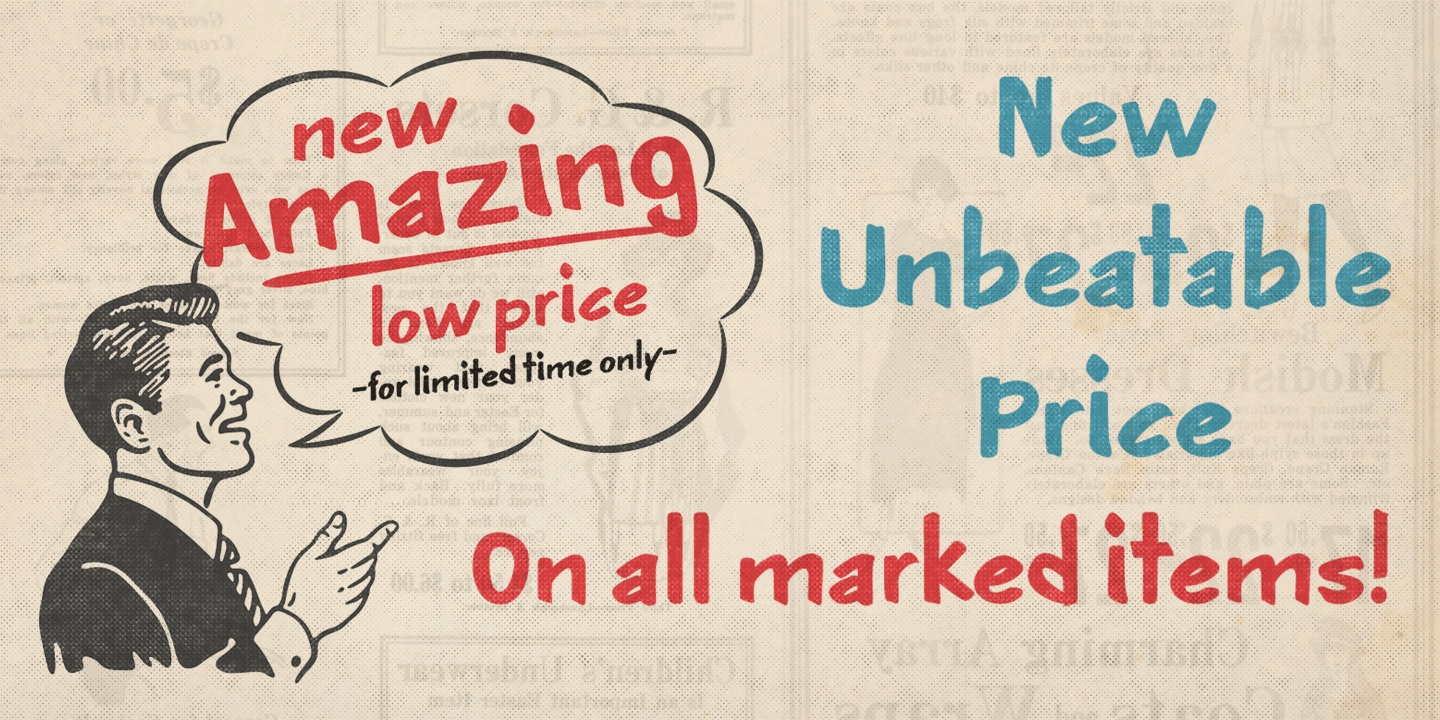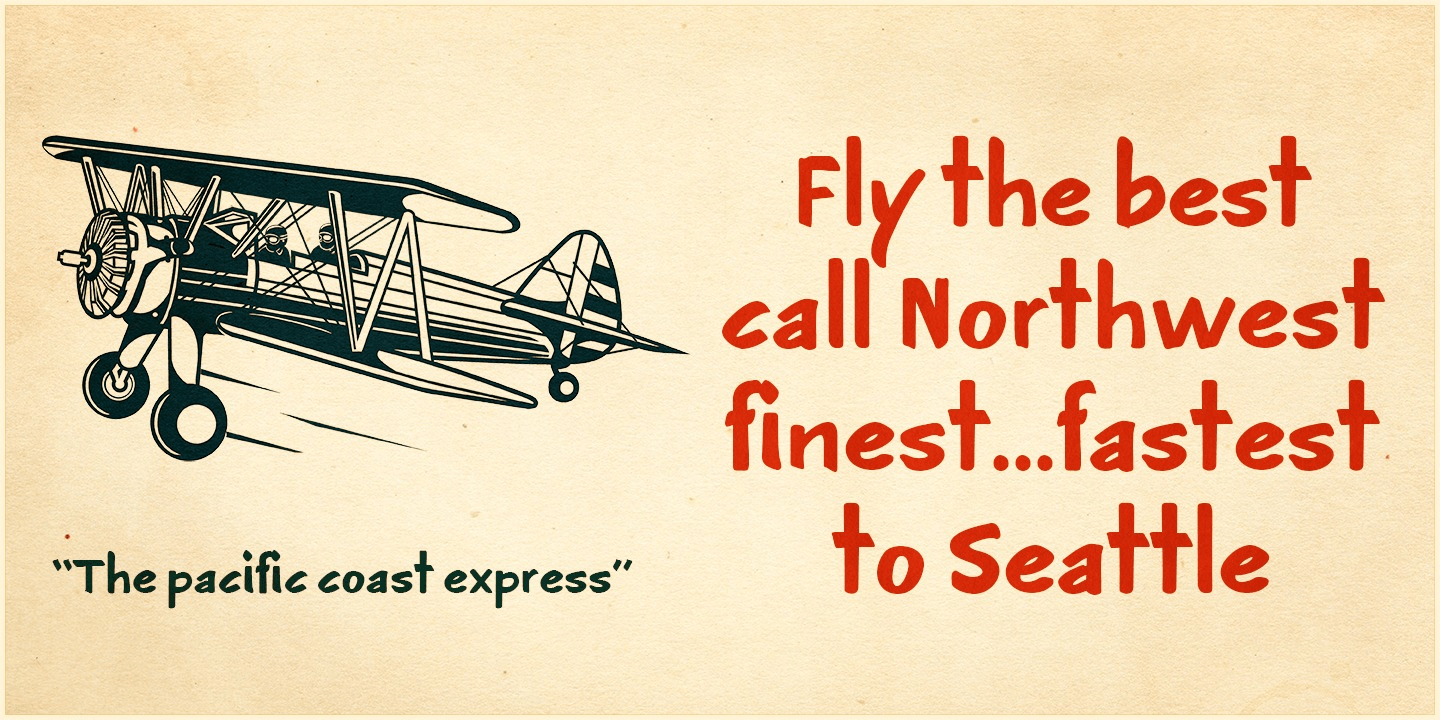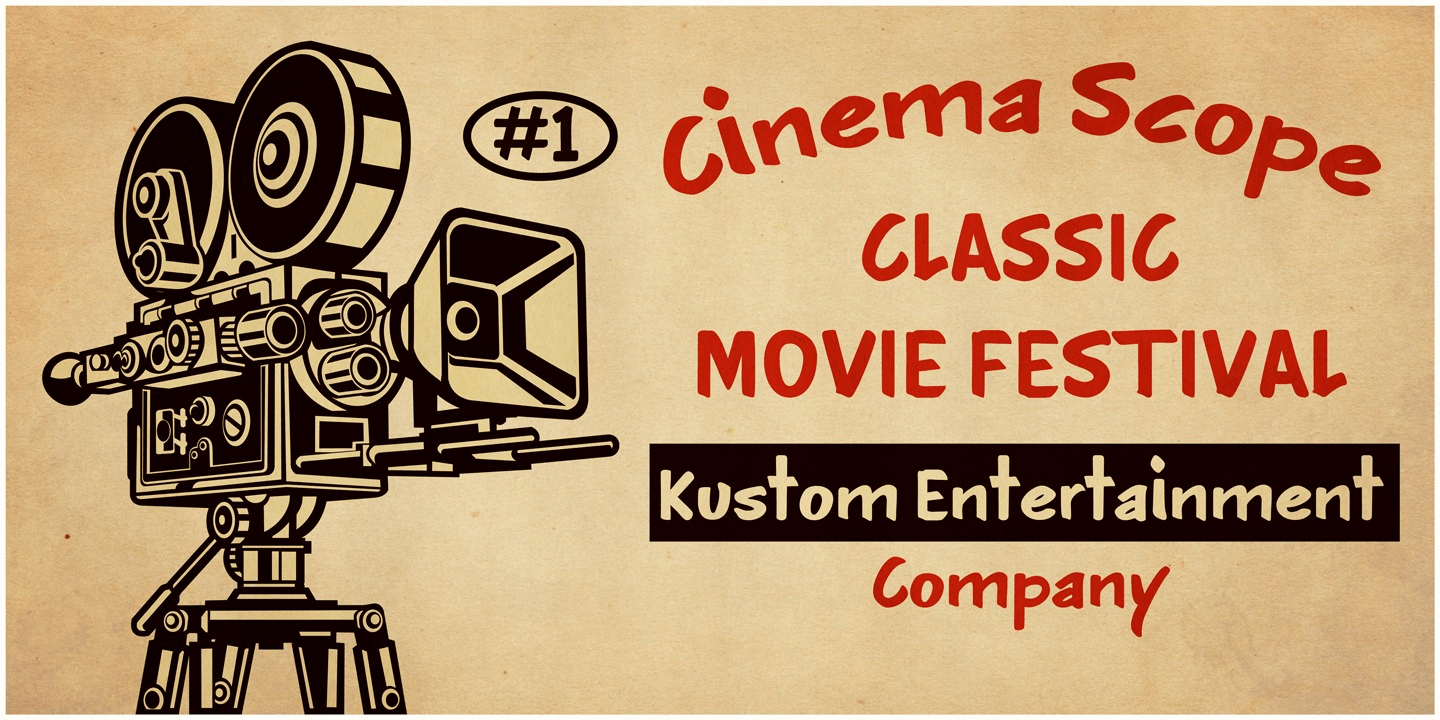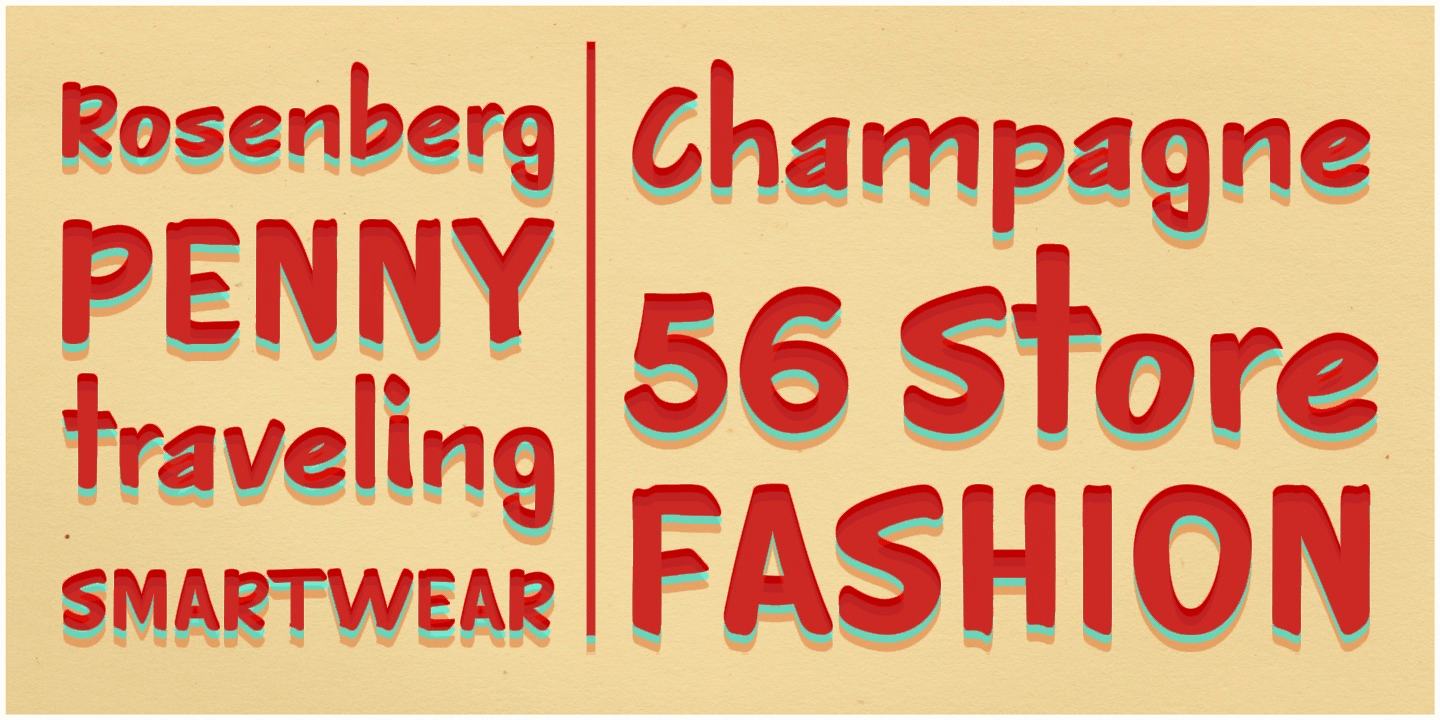
About Luckystrikes
Introducing Luckystrikes, a handwritten script-font inspired by a poor amount of characters in the 1950-style advertising of the well-known American cigarettes. Kustomtype redrew this font with a very clear and cool old-script style. This font is great…